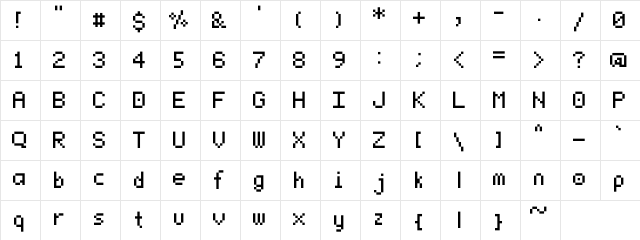
0v3rcl0ck3d Regular Free Font
0v3rcl0ck3d Regular
Design Context for 0v3rcl0ck3d
0v3rcl0ck3d is a composed and adaptable typeface that performs quietly and consistently across a wide range of design contexts.
Pro Tip: Use 0v3rcl0ck3d in both headline and body roles to test its range before committing to a single application.